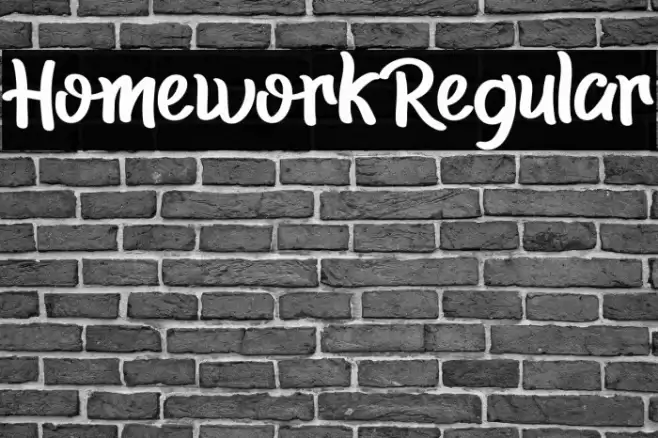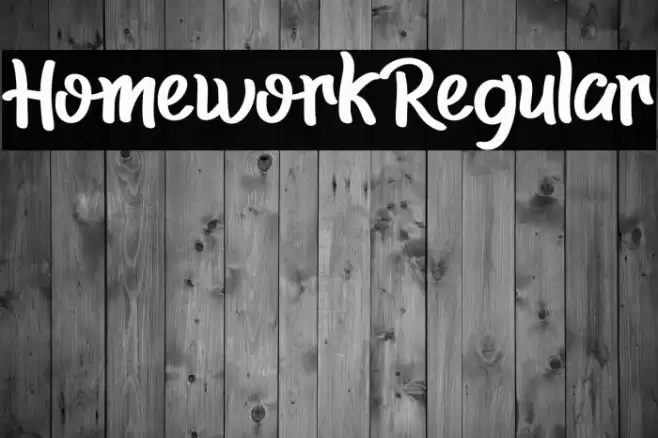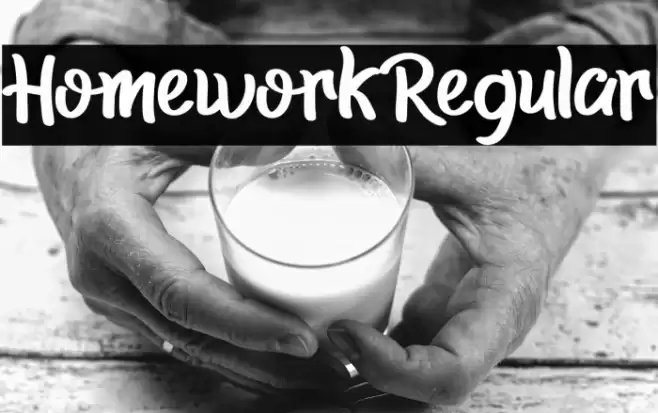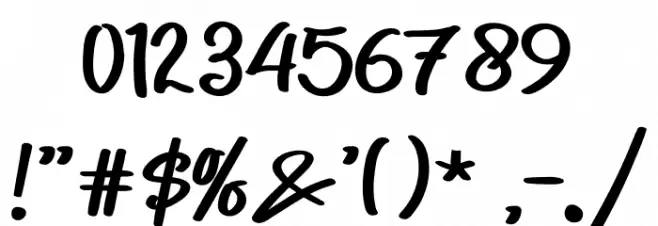
HomeworkRegular Font
HomeworkRegular Description
This font features a playful and dynamic script style, characterized by its bold and flowing letterforms. The strokes are smooth and rounded, giving it a friendly and approachable appearance. The uppercase letters are slightly larger and more prominent, while the lowercase letters maintain a consistent flow. The numbers and special characters are designed to match the overall style, ensuring a cohesive look across all elements. The font's design is versatile, making it suitable for a variety of creative projects.
A bold, playful script font with smooth, rounded letterforms from Regular fonts.
- Proposed Projects: Ideal for greeting cards, invitations, playful branding, and children's book covers.
- Overall Style: Playful